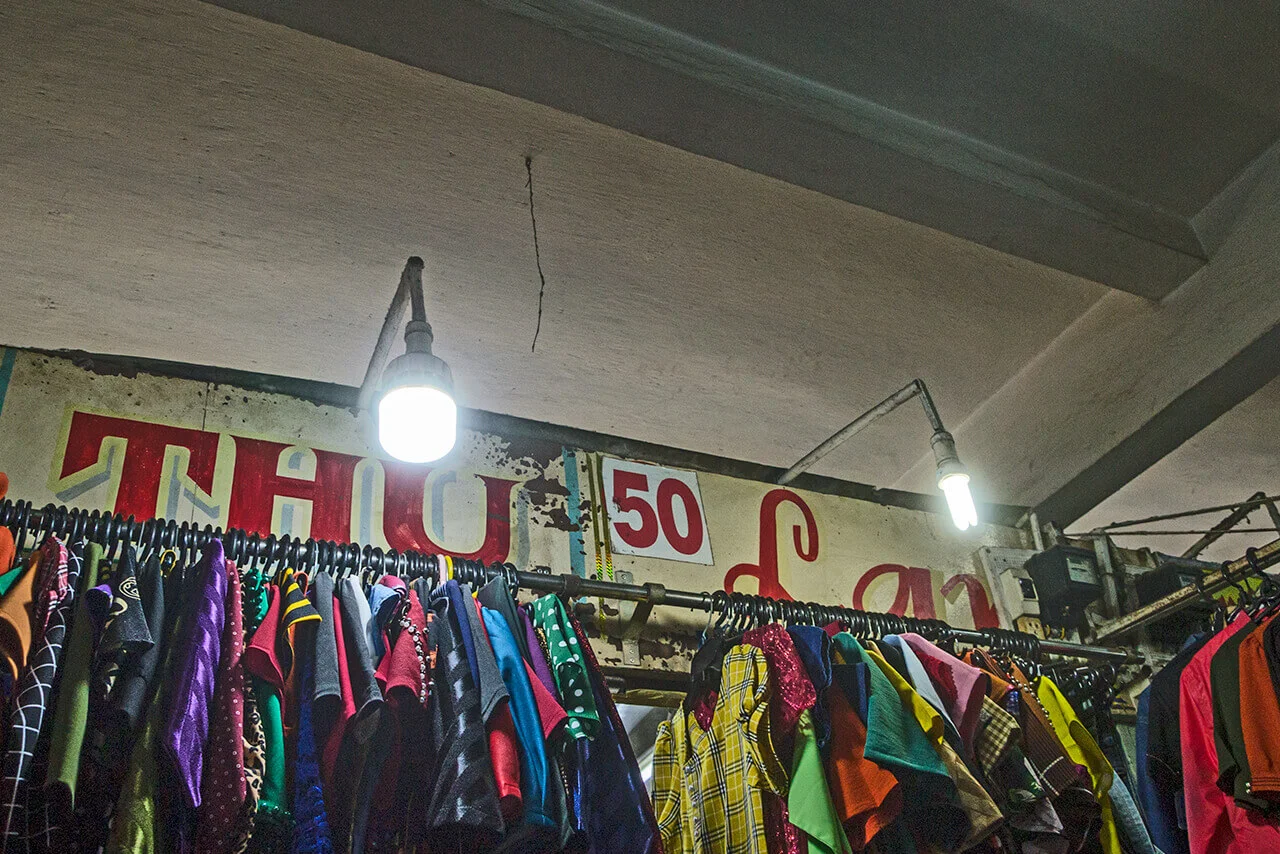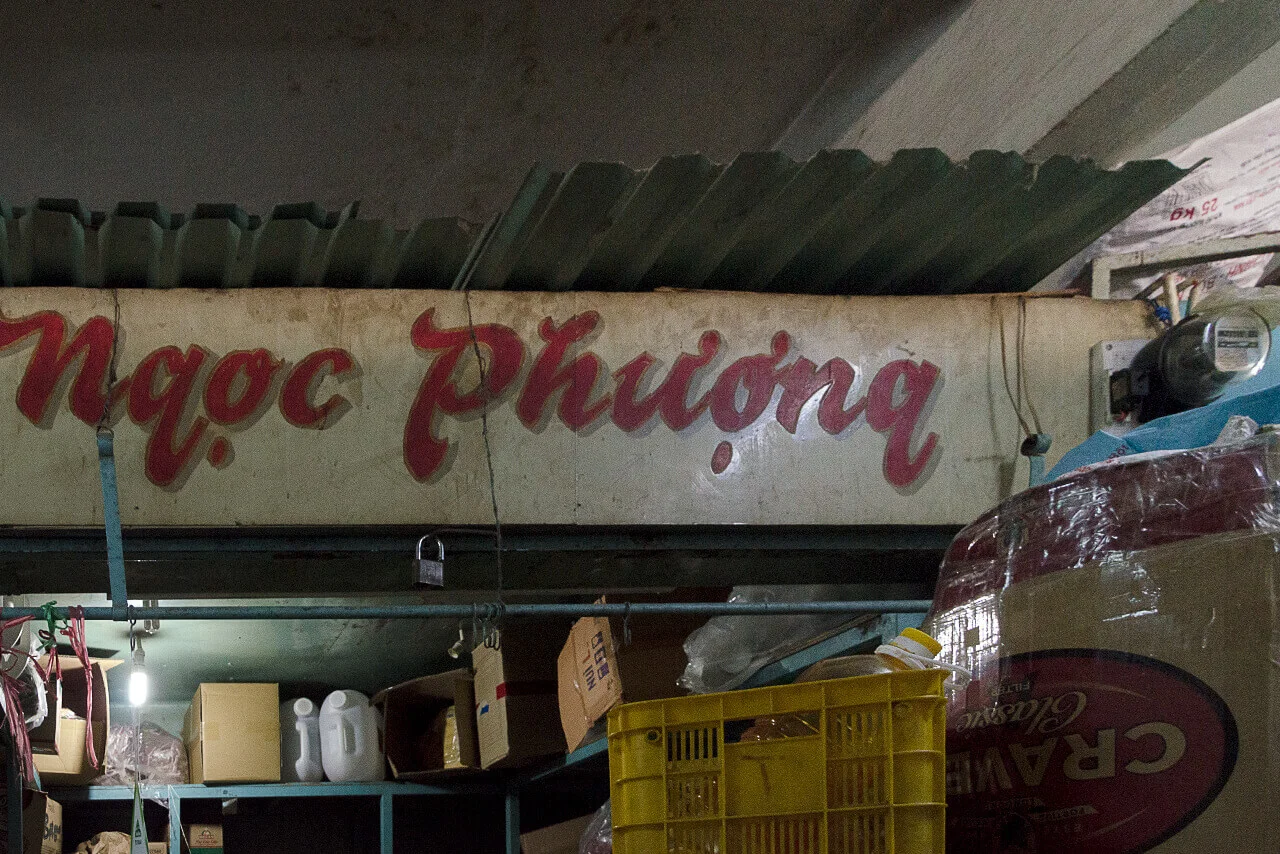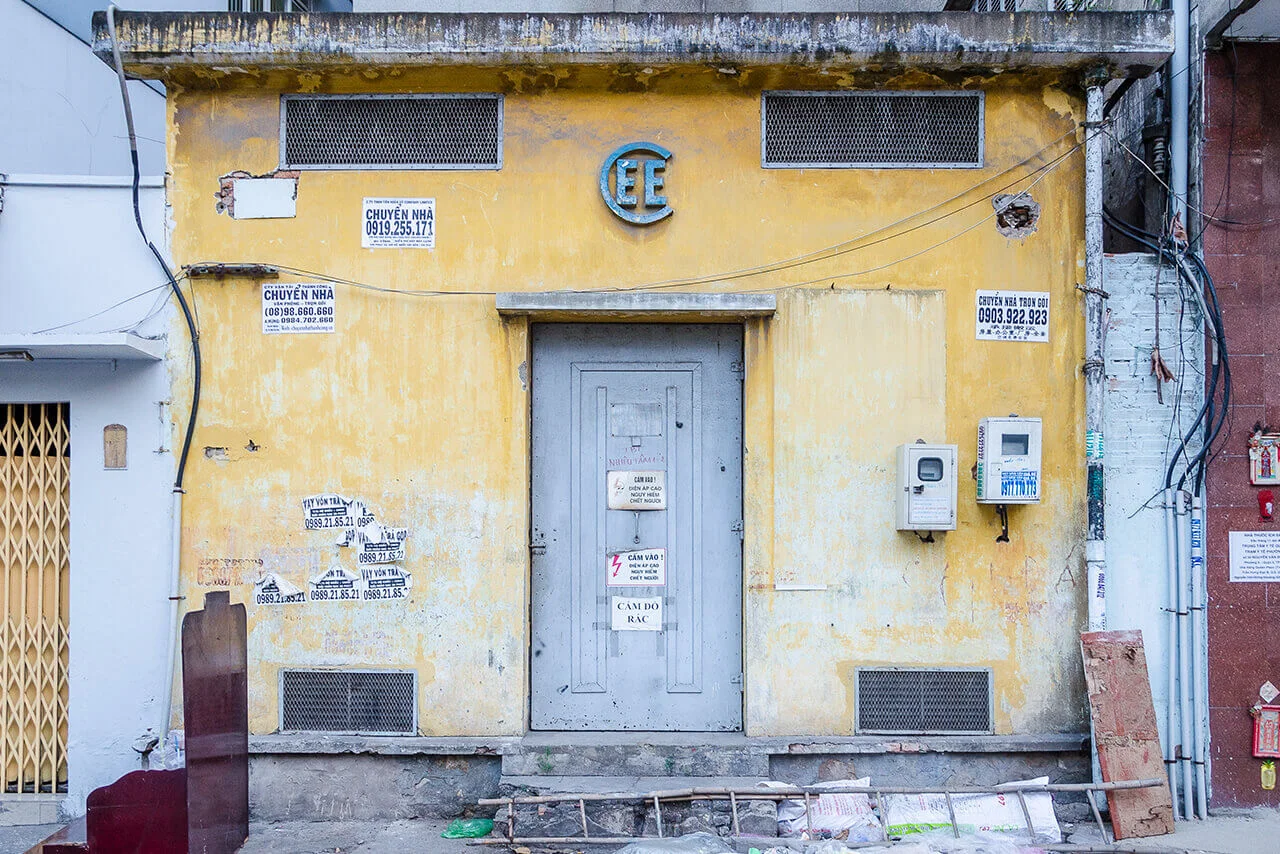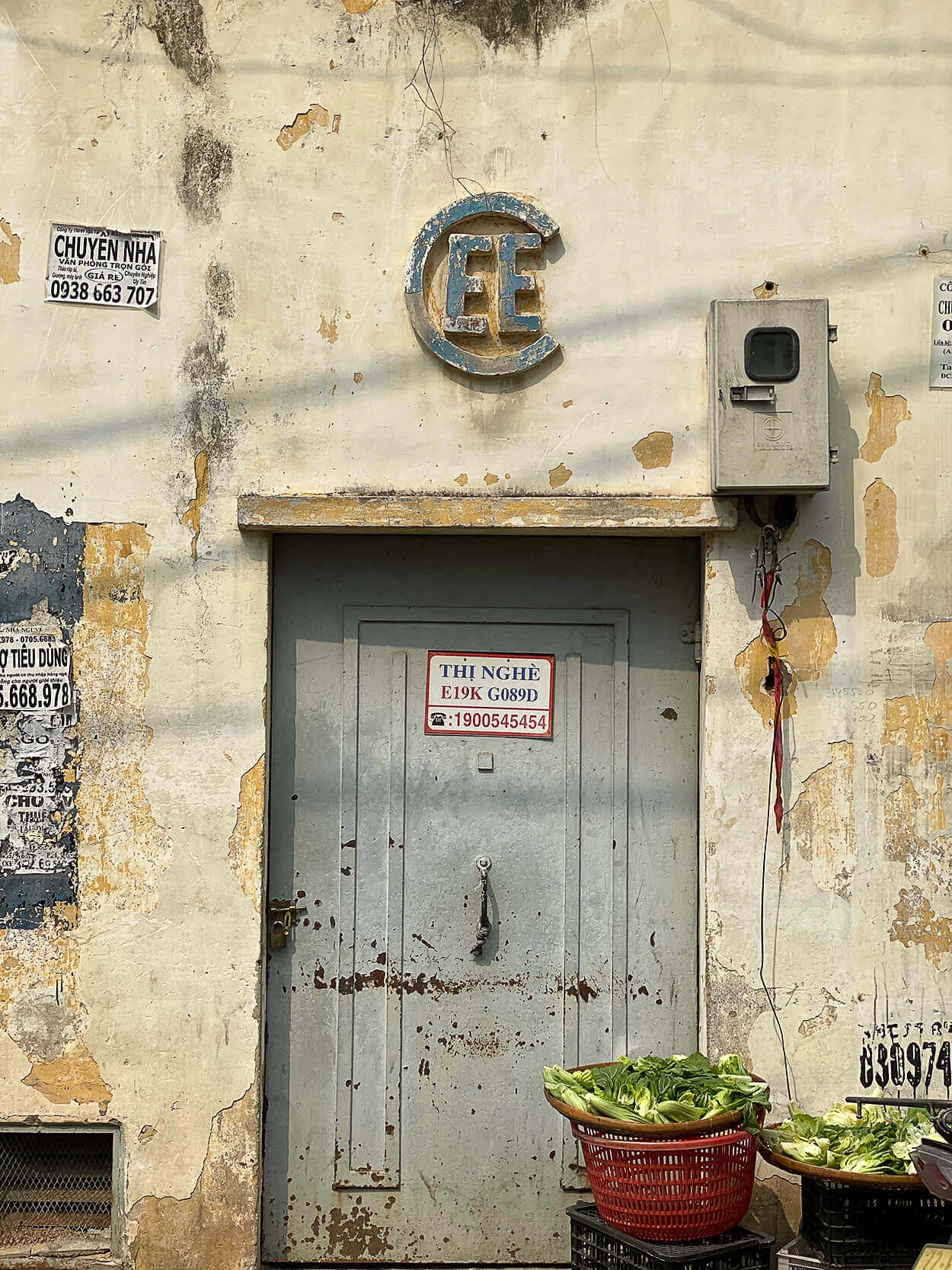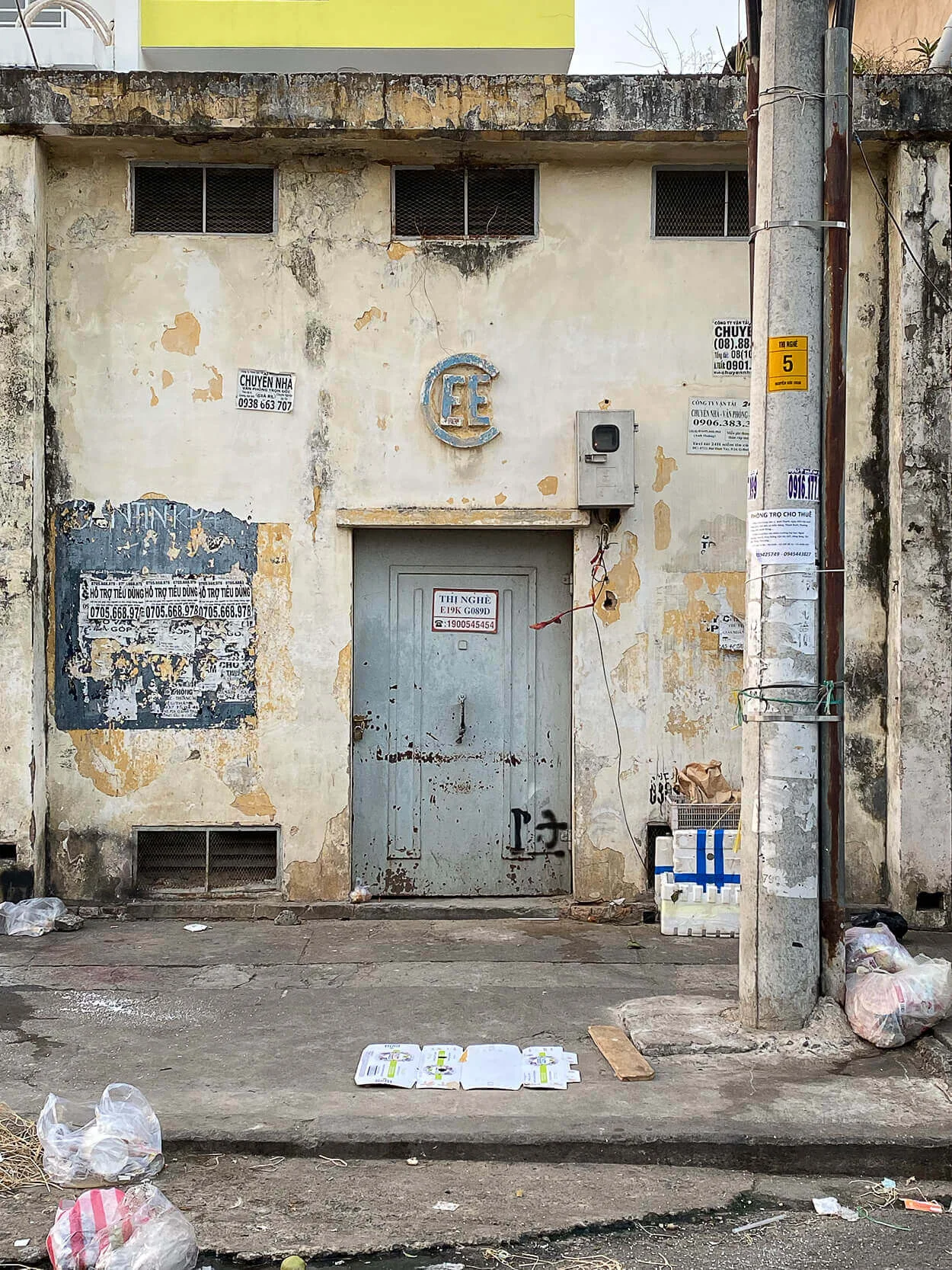
Signs of Saigon
Tracing Old Saigon
Inspired by the Signs of Saigon project by Steffi Neukirchen, I set out on my first trip to Ho Chi Minh City in December 2019 with the expectation of encountering a wealth of historic lettering.
Having been in contact with her prior to the journey, I anticipated typographic discoveries at every corner—much like those documented on her website, on Instagram, or in Saigoneer.
Ho Chi Minh City is an extraordinarily dynamic city, and it may have been somewhat naïve to expect that time would stand still here of all places. With images of old Saigon from the 1960s and 1970s in mind, only one constant seems to remain: the still astonishing street traffic, an unending stream of motorbikes.
Encounters with older signs proved considerably rarer. In the dim interiors of certain market halls, such as Xóm Chiếu Market, a few painted letterings can still be found. In some cases, however, the low light made it difficult to determine whether they were indeed hand-crafted. Occasionally, I came across examples on the streets as well—but the question remained: had I simply been looking in the wrong places?
Compagnie des
eaux et d’électricité d’Indochine
An unexpected remnant of colonial rule can be found in the numerous substations of the Indochina Water and Electricity Company (CEE) that appear throughout the urban fabric of Ho Chi Minh City. The Compagnie des eaux et d’électricité d’Indochine, established by the French in 1900, was responsible—through its subsidiaries—for the city’s essential infrastructure.
Its distinctive logo, with its characteristic lettering, still adorns many of these modest structures. Although responsibility has since passed to Vietnam Electricity (EVN), the stations appear to be carefully maintained to this day. The dates inscribed on their façades offer a subtle indication of the many transformations the city has undergone over the decades.